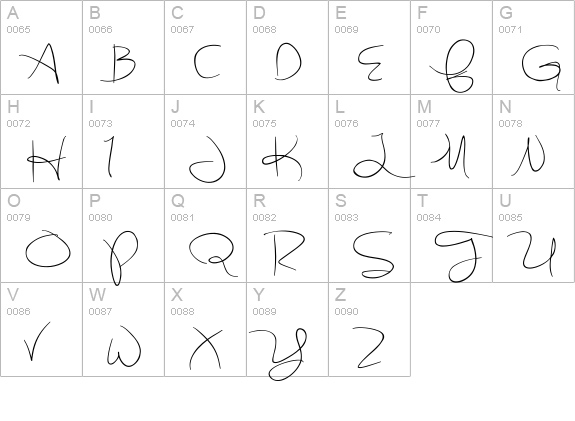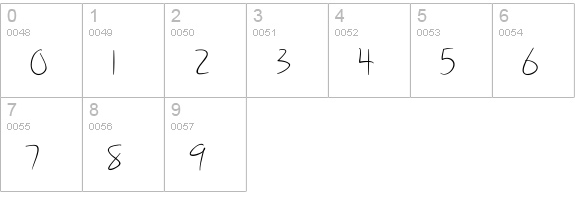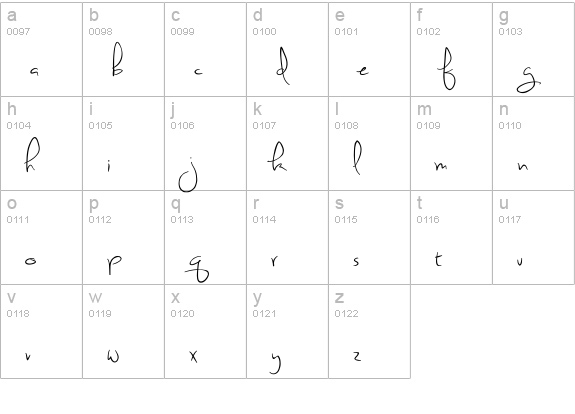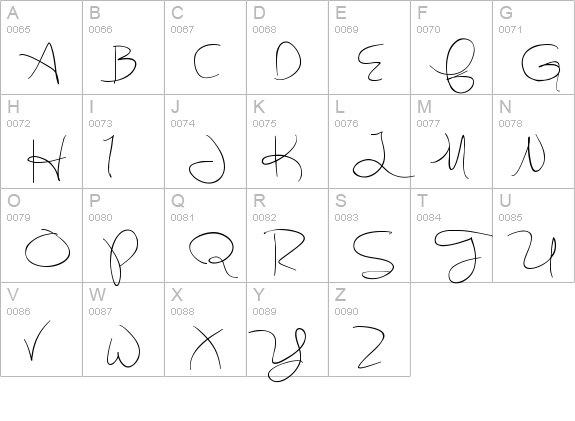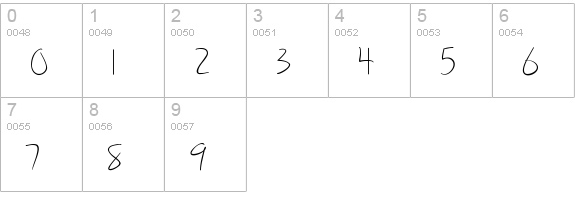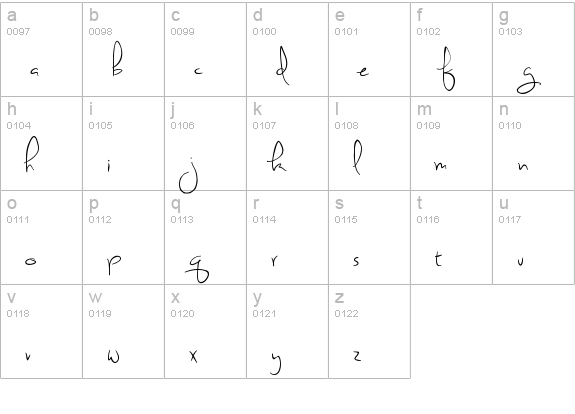
Sweetly Broken Font Details
Sweetly Broken font is a charming and elegant typeface that exudes a sense of delicate beauty and sophistication. The graceful curves and intricate details of each letter give this font a unique and enchanting appeal. Perfect for adding a touch of romance and whimsy to any design project, Sweetly Broken font is sure to captivate and inspire. The best part? Sweetly Broken font is completely free to download at FontsMarket.com. Whether you're working on a wedding invitation, a logo design, or any other creative project, this font is a fantastic choice for adding a touch of sweetness and elegance. Don't miss out on the opportunity to enhance your designs with this exquisite font, available for free download now at FontsMarket.com.